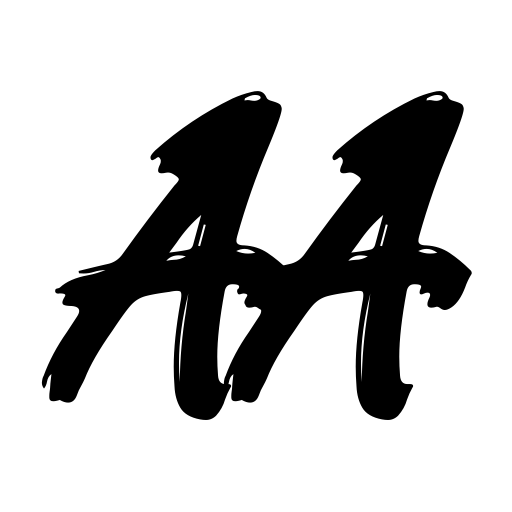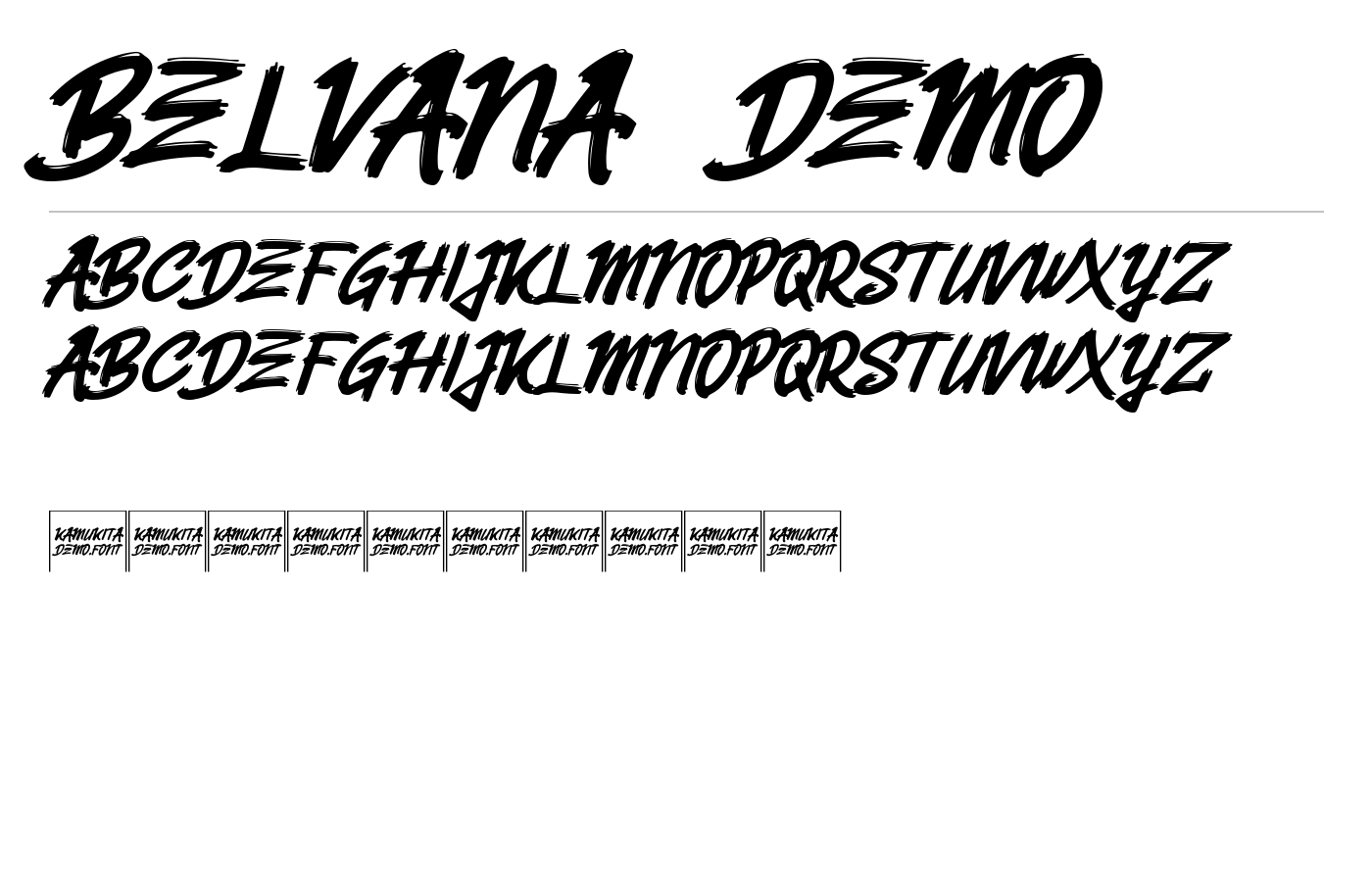
Belvana is a bold and expressive brush script font with a dynamic, hand-painted feel. Its thick, textured strokes and lively letterforms convey energy and creativity, making it perfect for eye-catching headlines, logos, and branding that seek a casual yet impactful personality. This font works especially well in artistic, urban, or youthful design contexts where a spontaneous and authentic touch is desired.
Belvana (demo) Font